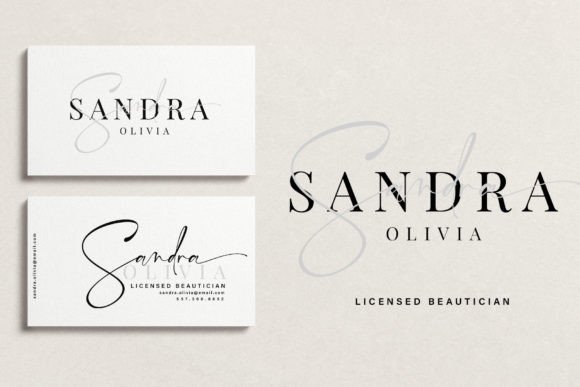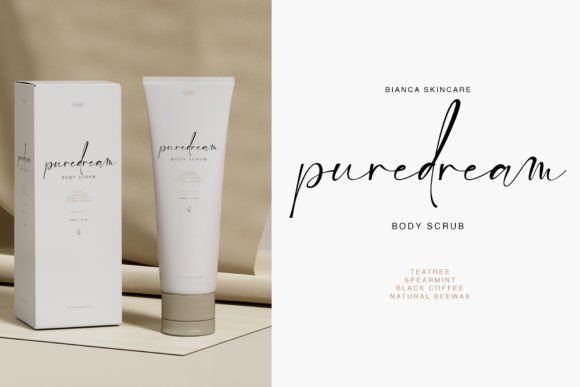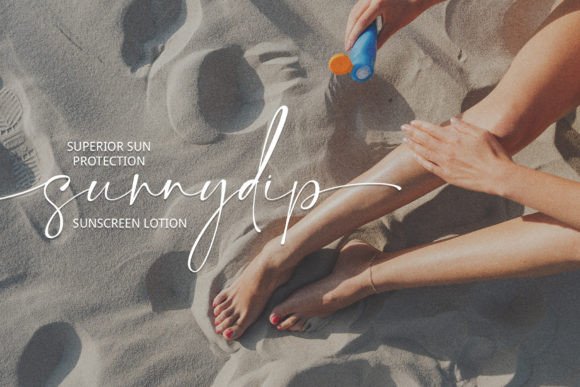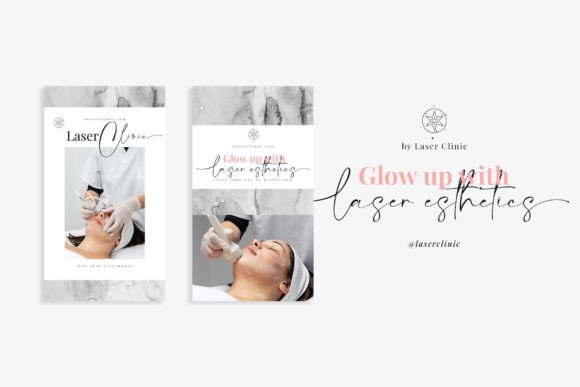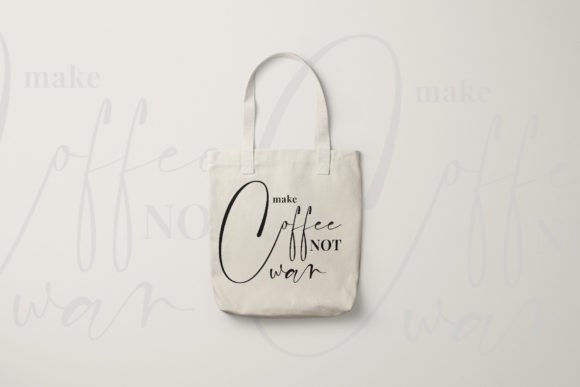
Introduction to Mesopotamia Font
As a designer, have you ever found yourself stuck in a creative rut, searching for the perfect font to bring your vision to life? You’ve spent hours scouring the web, trying out different styles, and experimenting with various typography combinations. But sometimes, it’s the smallest detail that makes all the difference. For me, it was the discovery of the Mesopotamia Font that sparked a wave of inspiration for my latest project.
| 👤 Author | Teweka |
The Mesopotamia Font is more than just a design resource – it’s a game-changer for any creative project that requires a touch of elegance and sophistication. With its unique signature letters and swash ligatures, this high-quality font is perfect for logos, packaging, headlines, posters, t-shirts, greeting cards, wedding invitations, and so much more.
What sets the Mesopotamia Font apart is its versatility and flexibility. Whether you’re working on a free download project or need a font with a transparent background, this design resource is sure to impress. And the best part? It’s available for download, making it an invaluable addition to any designer’s toolkit.
Key Features of Mesopotamia Font
- High-quality design resource ideal for creative projects, available for free download
- Unique, ancient-inspired aesthetic with intricate details and ornate elements
- Features a transparent background, allowing for easy customization and layering
- Perfect for adding an exotic, cultural touch to logos, branding materials, and other design elements
Honest Review: Mesopotamia Font
I recently stumbled upon the Mesopotamia Font, and I must say it’s been a fascinating addition to my design resource collection. This free download has been a game-changer for my creative projects, offering a unique touch that’s hard to find elsewhere.
- What works well: ✨ The Mesopotamia Font is incredibly versatile, suitable for a wide range of designs, from modern to ancient-inspired themes. The font’s elegant script and cursive styles make it perfect for quotes, headings, and even logotypes.
- What works well: ✨ The font’s transparent background feature is also a great plus, allowing for seamless integration with other design elements and backgrounds.
- ⚠️ The font’s character set is somewhat limited, which may cause issues for projects requiring a wide range of characters, such as Asian languages.
- ⚠️ The font’s scalability can be a bit inconsistent, especially when used at very large or small sizes.
Overall, I’m impressed with the Mesopotamia Font’s high quality and creative potential. While it may have some limitations, I believe it’s a valuable addition to any designer’s toolkit, especially for those working on high-end, artistic projects.
Getting the Most Out of Mesopotamia Font
To get the most out of Mesopotamia Font, try combining it with a transparent background for a unique design look. You can also experiment with different font sizes and styles to add visual interest to your project.
Common Use Cases for Mesopotamia Font
The Mesopotamia Font is a high-quality design resource that can be used in a variety of creative projects, including:
- Logo designs
- Posters